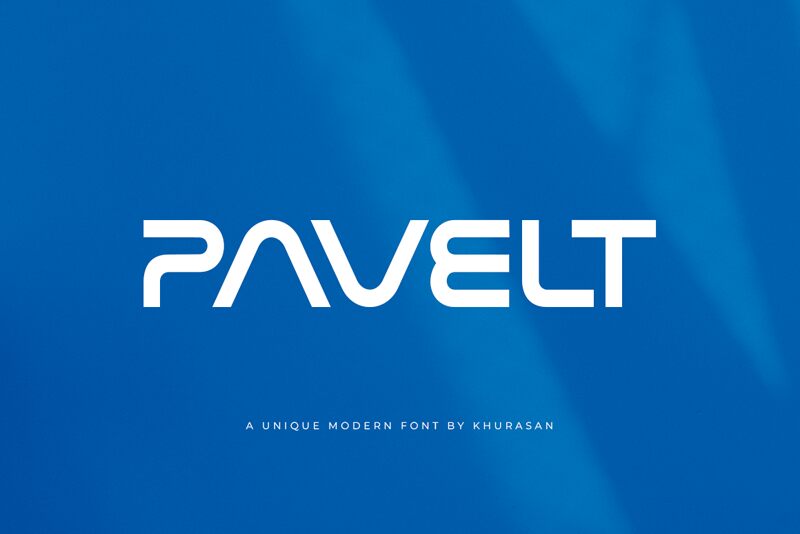
Pavelt, designed by Khurasan, is a futuristic display font with expanded width. Its clean and unique design gives it a modern touch, making it perfect for a variety of projects.
The smooth and light execution of Pavelt adds a sleek and elegant feel to any design, particularly suitable for girly branding designs. Whether you are working on fashion logos, beauty blogs, or creative advertisements, this font will make your ideas stand out effortlessly.
Pavelt